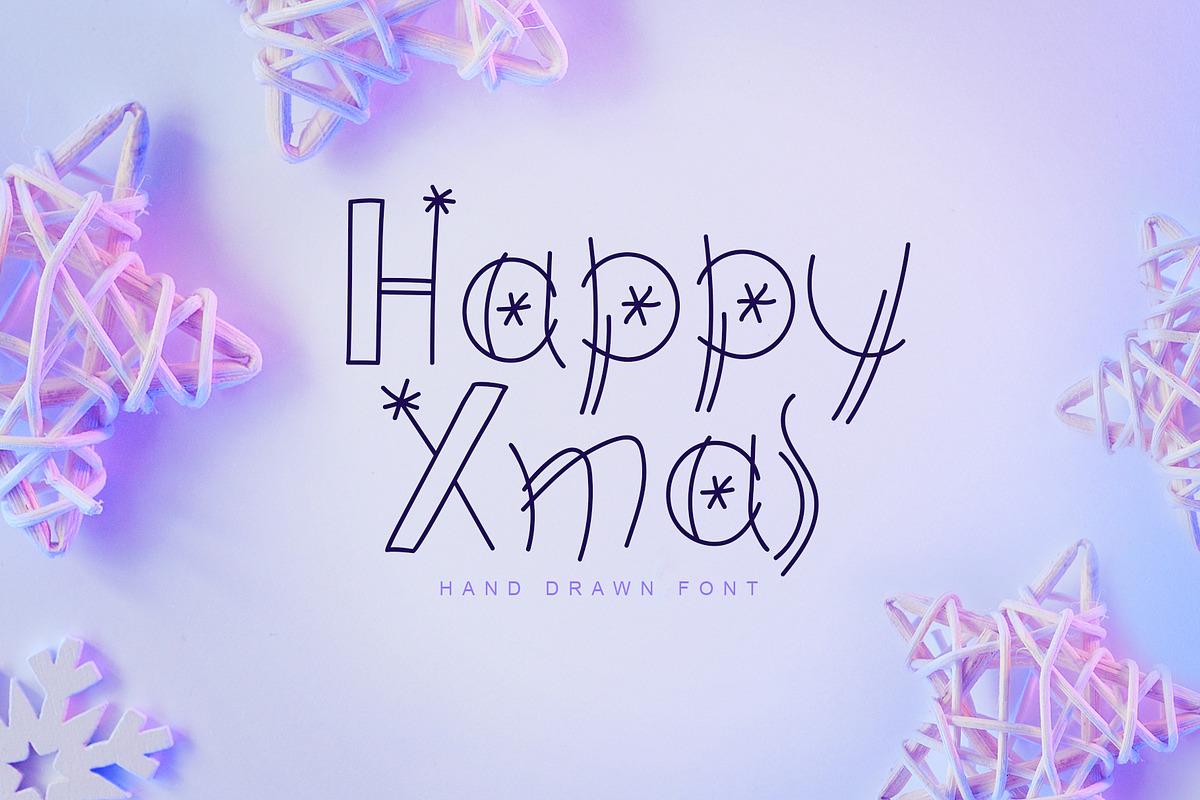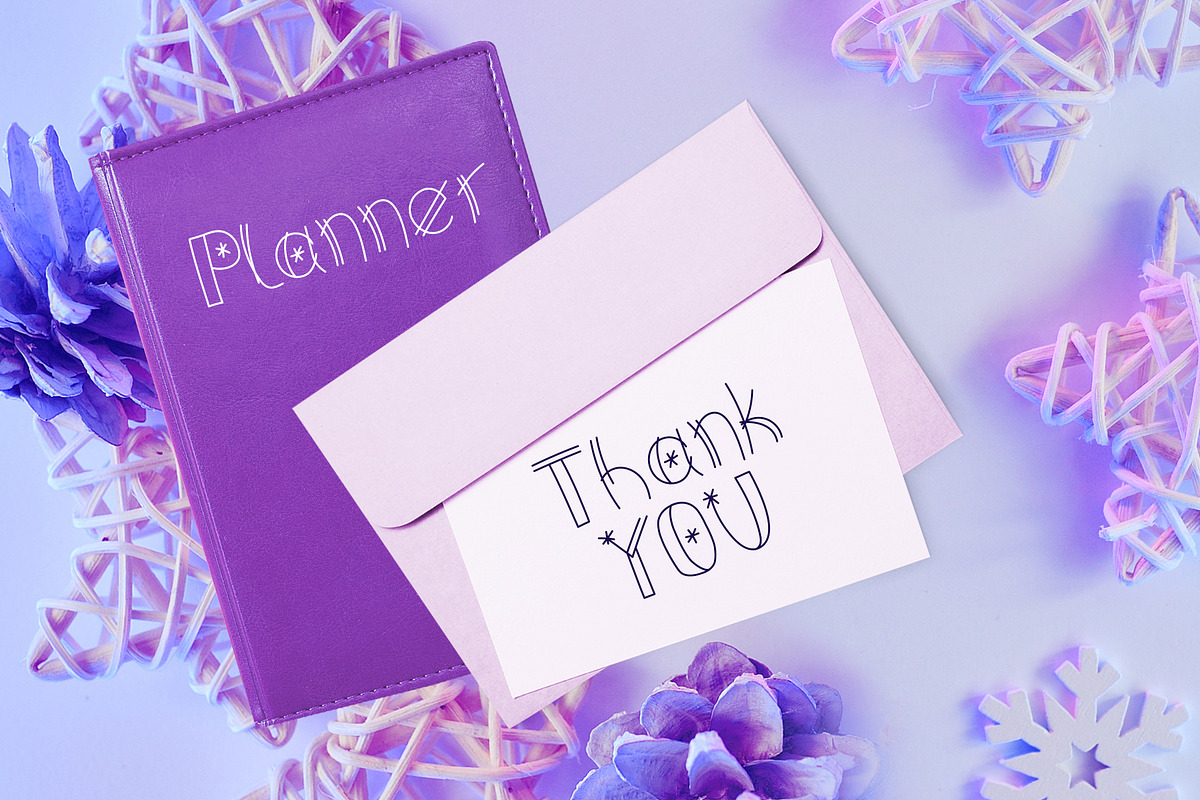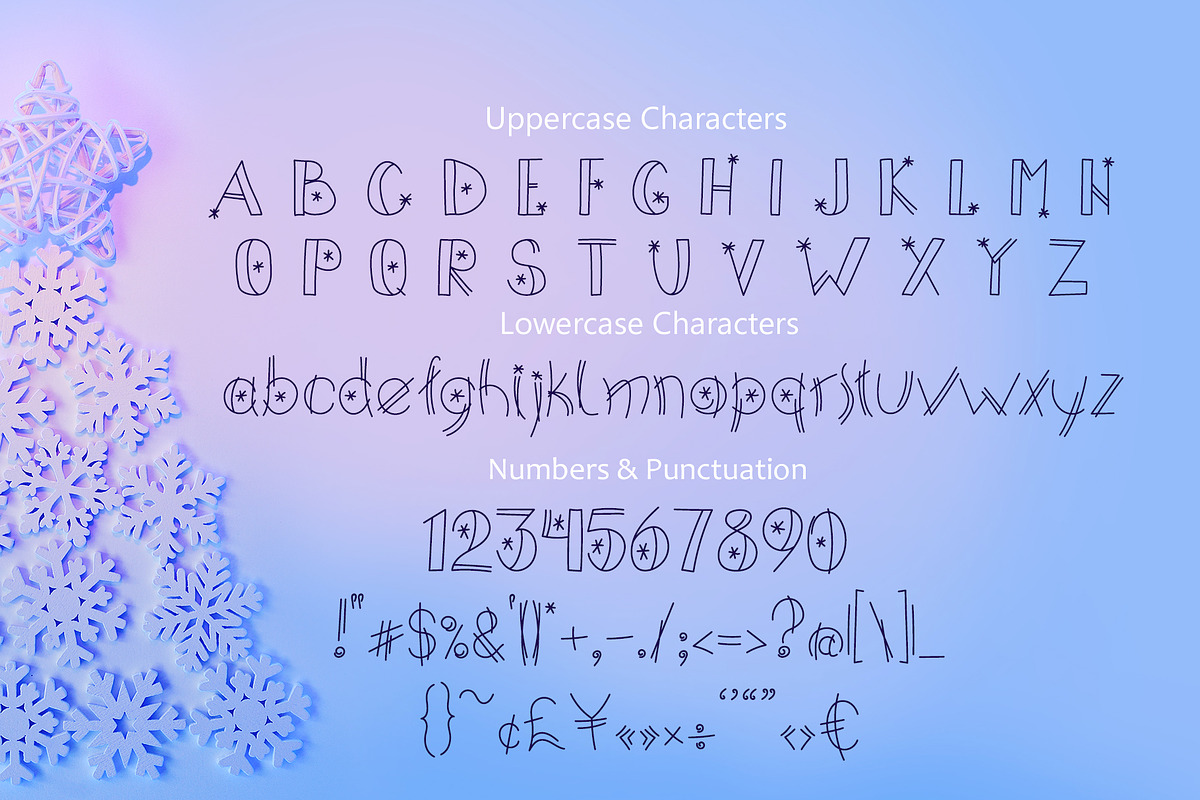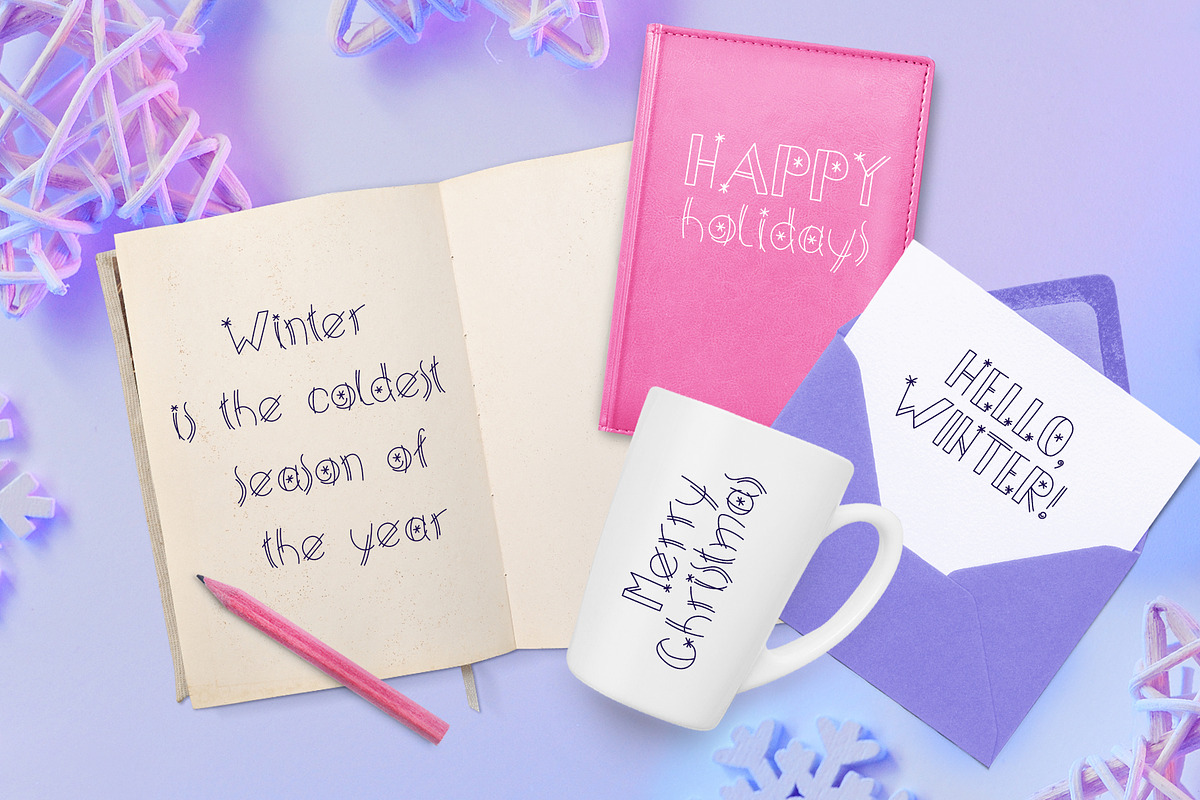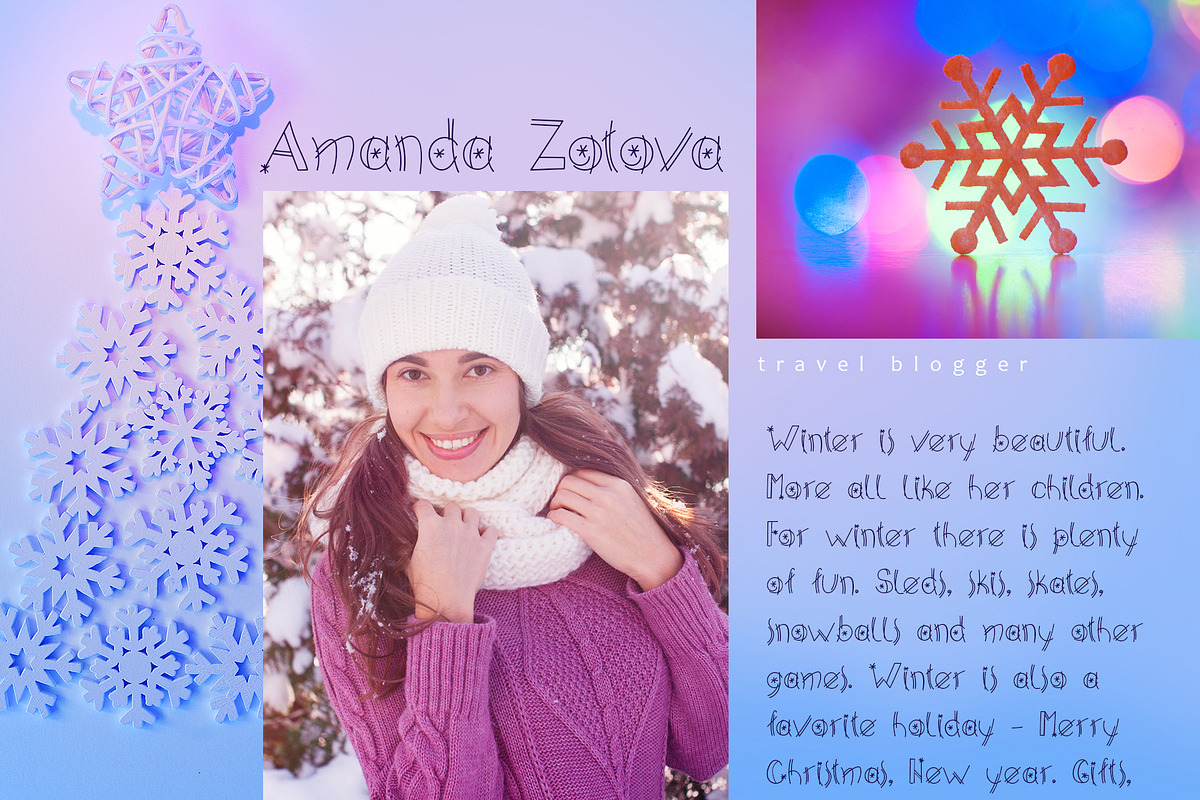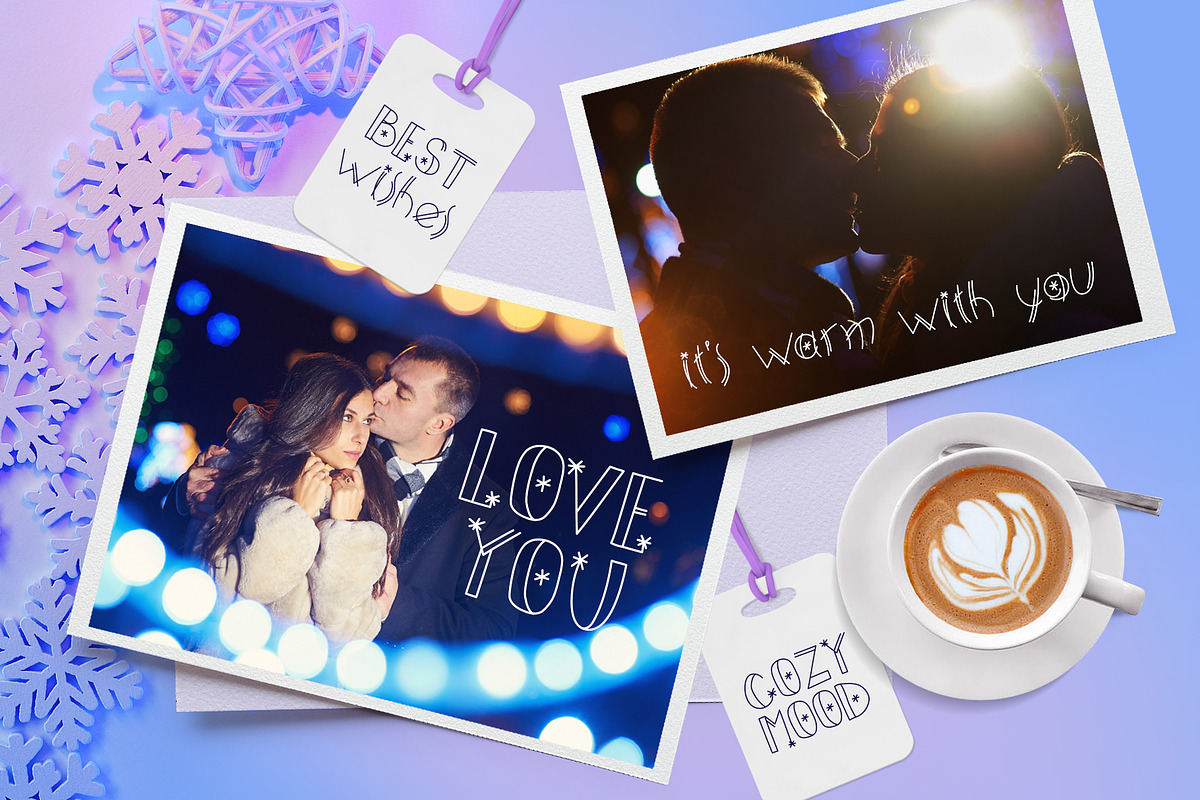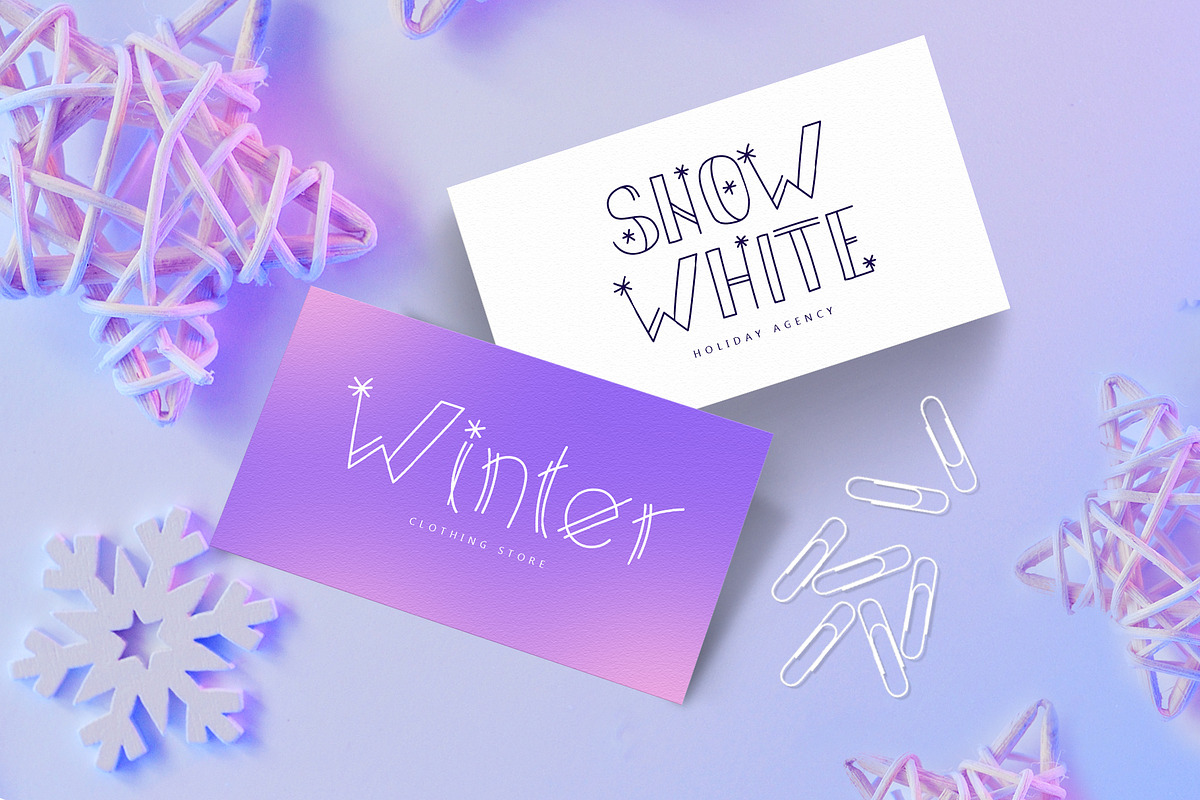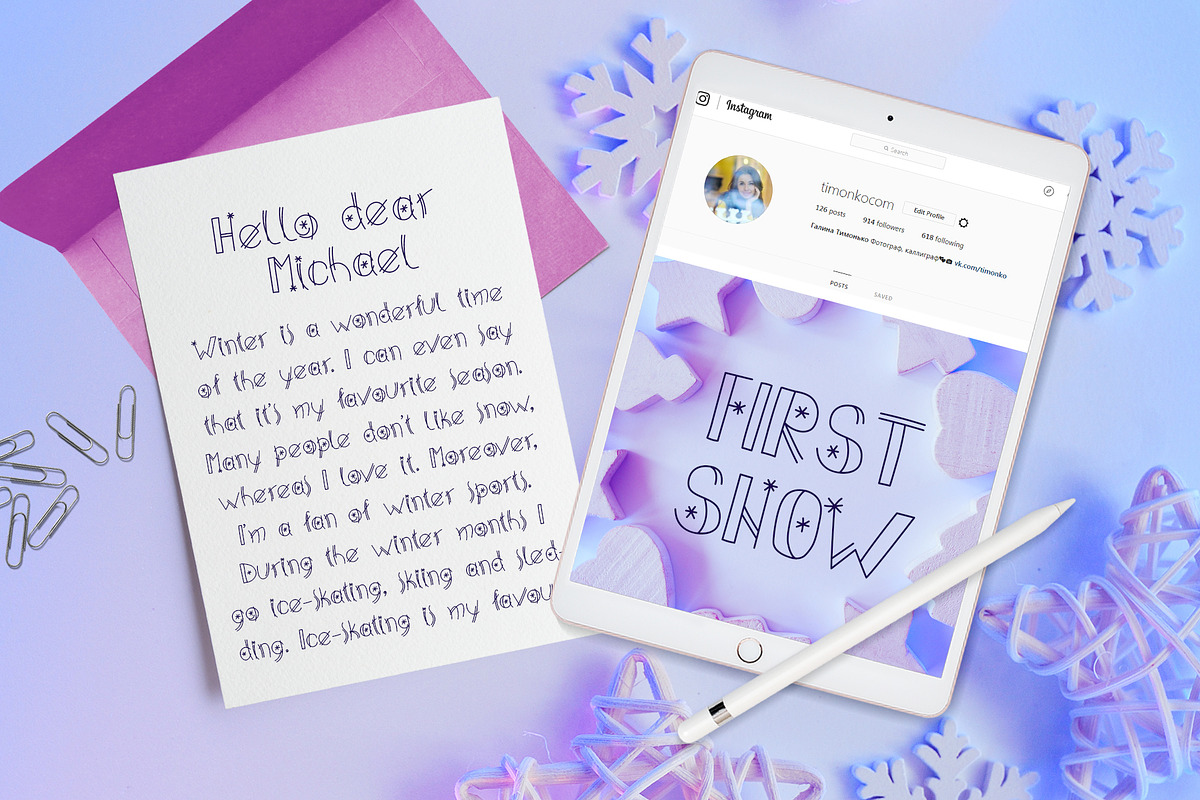
Happy Xmas Hand Drawn Font
Happy Xmas Hand Drawn Font is modern font. This winter Font with snowflakes element is beautiful instrument for designers, blogers and everybody who loves doodle scandinavian or hygge style.
Titles for kid`s book, scrapbook, logo, icon, phrases or quotes for winter greeting cards (Christmas or New Year holidays), photo overlay, short phrases, children’s book, gift shops tag, presentation in social media Pinterest, Instagram, Facebook or other.
Why Happy Xmas Hand Drawn Font is worth a look
Happy Xmas Hand Drawn Font by Happy Letters fits naturally into Branding, posters, packaging, typography.